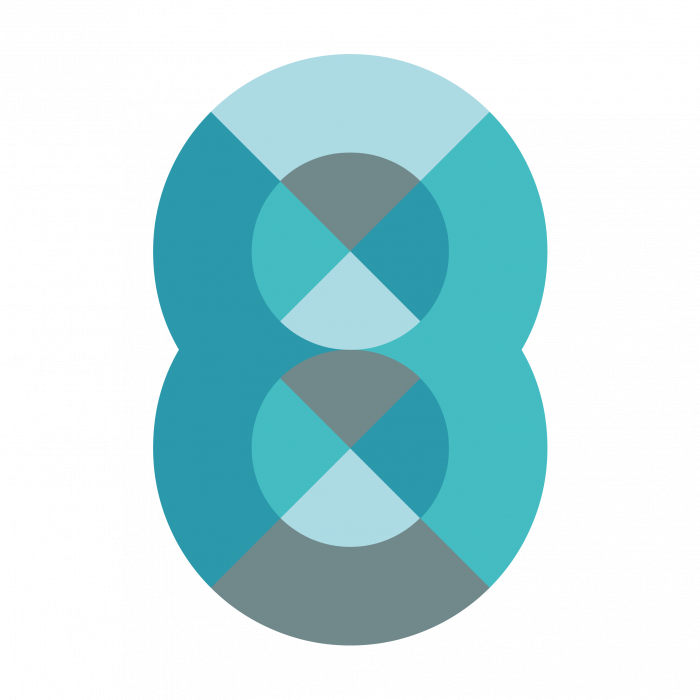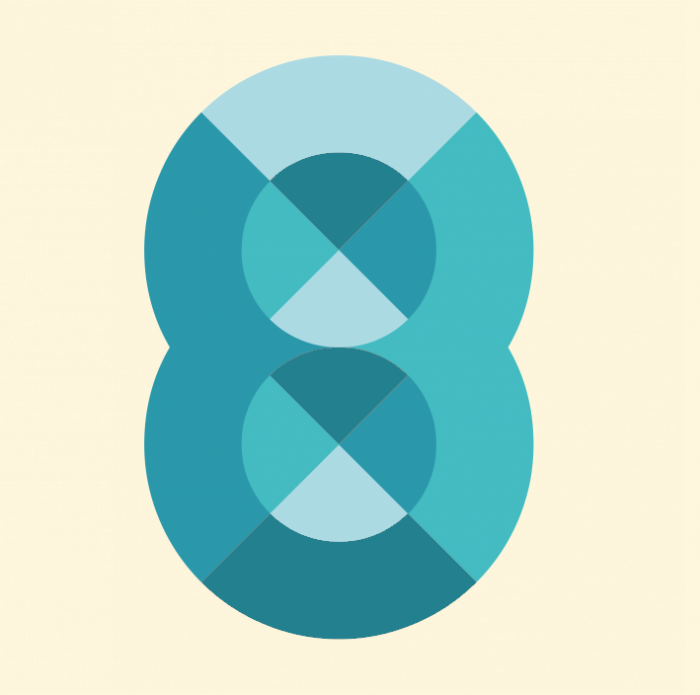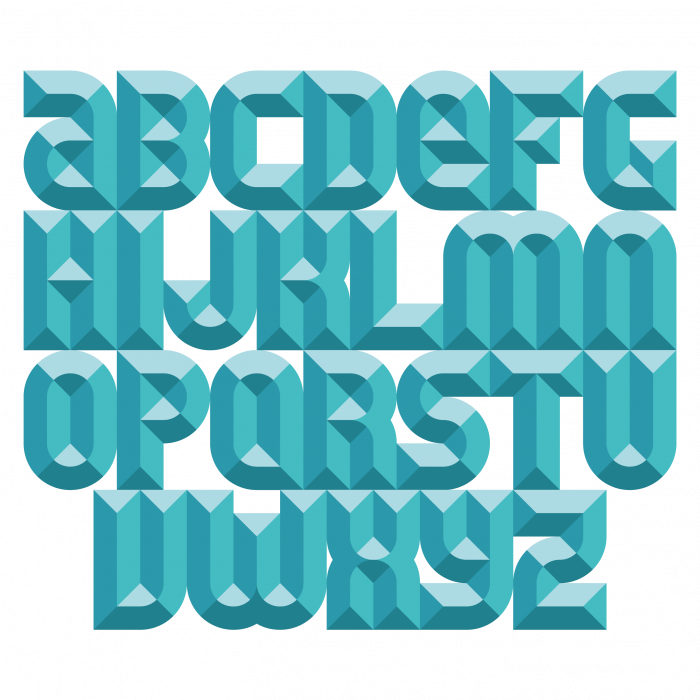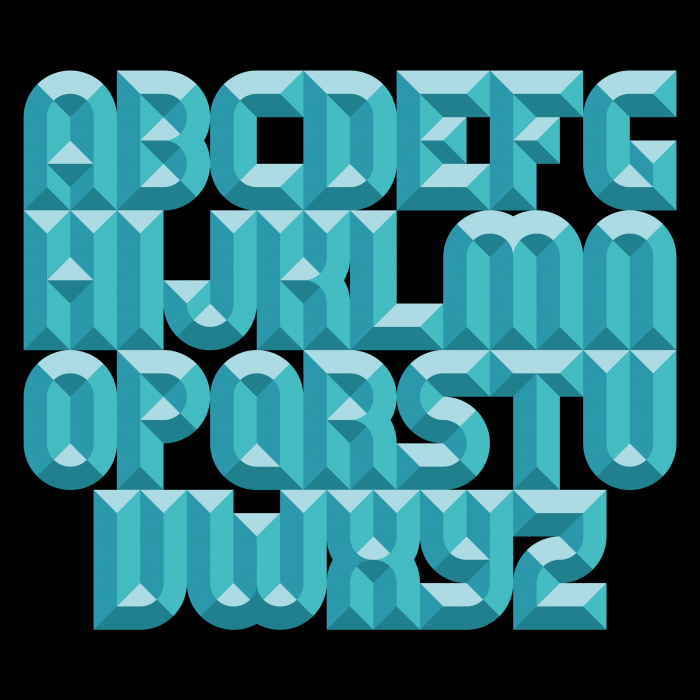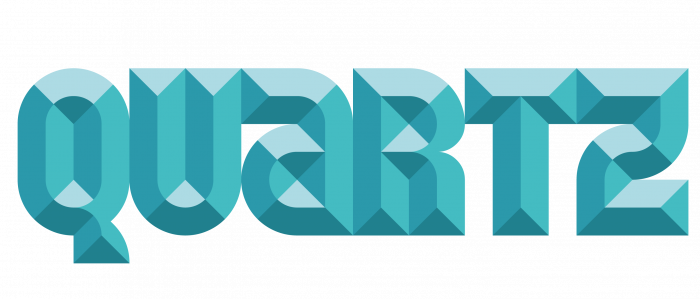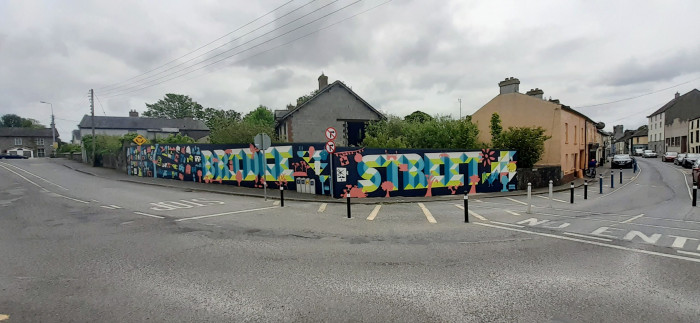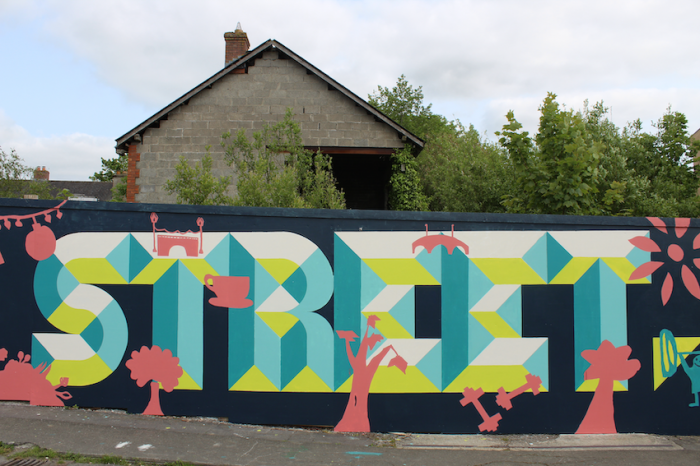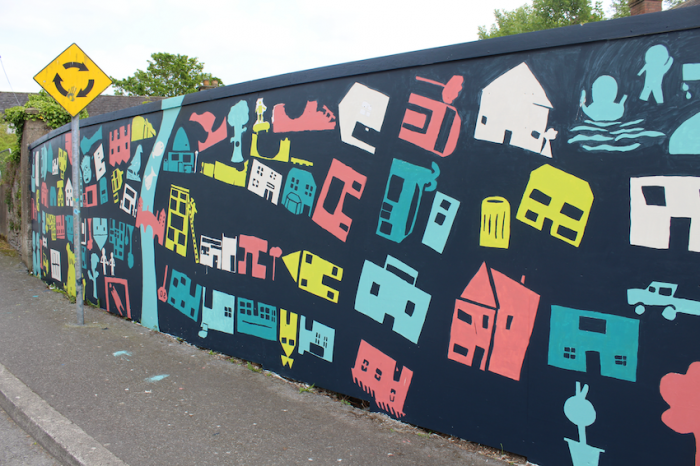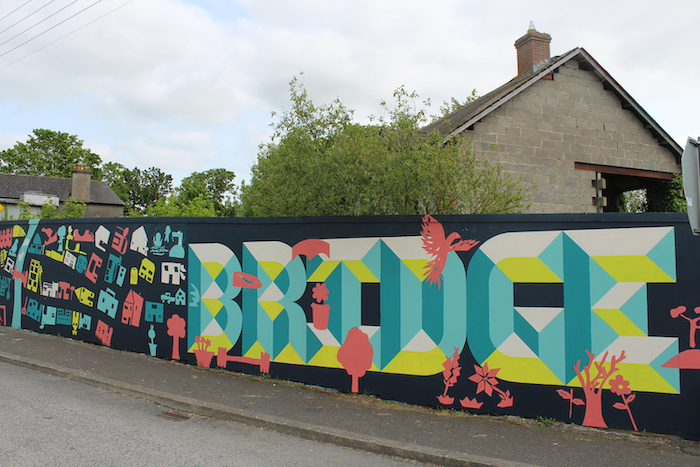
Quite clever in its simplicity but just stunning looking as well.
@four - Wow. Amazing use of colors here!
Very nice use of the half arches for the shading!
Great bevel effect! You could try adding some overshoots?
Fantastic! I love this kind of fonts 😍! What would you think about changing the gray for another darker shade in the range of blues you've used?
Thanks, @Yautja, I was looking at overshoots, but it wasn't working for e and some of the numbers.
Thanks for the excellent suggestion, @elmoyenique, that is definitely an improvement!
These new curves give the font a great personality!
A wall waiting a new work?
No, its the old curve! 😂
Nearly finished this mural on 32m hoarding around a derelict site in the town. It is based on papercuts made by children from the local primary and secondary schools and painted with the help of transition year students.
Dayumz pretty nice work, cool to see actual FontStructions in real life action
I knew it, I knew it! Congrats for this great work, compañero!
This is some pretty nice work in real-life usage in the above sample…
Thanks @Sed4tives, @elmoyenique and @BWM! This was a very enjoyable project to work on and the response to it in the town has been positive. The x-height of the letters is 183cm, nearly as tall as me.. I'll post some details of the letters.
That equates to a font size of around 5,187.5 typographical points… That's so big, it won't even fit on my 15.6" screen at a size of 141 pixels per inch
That is at its actual size and not zoomed out.
Kudos to the project, the practical usage of the font works so well with the beautiful mural!
Wow! Amazing work. I hope to come and see this in the Summer!
from 'a wall waiting a new work' to A FUKING MASTERPIECE!
it's cool
This one is especially great! It brings to mind memories of an 8-bit video game called BoulderDash or Emeral Mine that used the same type of beveling. Love it on that mural!
Nice brochure! I see you had that in mind when you designed the painting on the wall. Congrats, dear @four!
Thanks @elmoyenique! It was actually the other way round: the map came first.
*geometry intensifies*